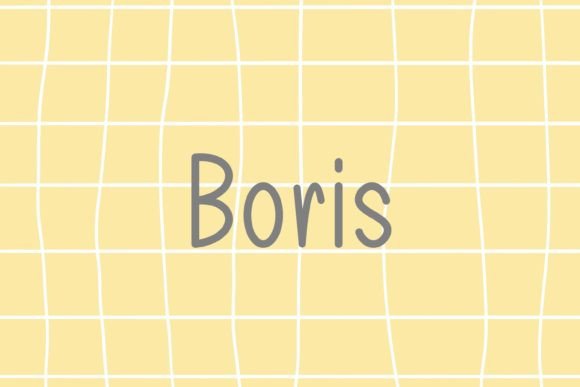
Boris Font: The Simple and Friendly Handwritten Font to Elevate Your Designs
In the world of typography, fonts play a crucial role in conveying the tone and personality of a design. Among the numerous fonts available, Boris font stands out for its simplicity, friendliness, and whimsical touch. This article will explore the features, benefits, and uses of the Boris font, and why it’s an excellent choice for your design projects.
What is Boris Font?
Boris is a simple and friendly handwritten font that exudes a sense of approachability and playfulness. Its whimsical and slightly quirky nature makes it an ideal choice for designers looking to add a personal touch to their work. The font’s clean and elegant lines ensure that it remains readable and versatile, making it suitable for a wide range of applications.
Key Features of Boris Font
- Simple and Friendly: Boris font boasts a straightforward and approachable design, making it perfect for creating a warm and inviting atmosphere in your designs.
- Handwritten: The font’s handwritten nature gives it a personal and organic feel, allowing you to add a touch of humanity to your work.
- Whimsical and Quirky: Boris font’s playful and slightly quirky personality makes it an excellent choice for designs that require a dash of creativity and fun.
- Versatile: The font’s clean lines and elegant design ensure that it remains readable and versatile, making it suitable for various design applications.
Benefits of Using Boris Font
Using Boris font in your design projects offers several benefits, including:
- Unique and Creative: Boris font’s distinctive design allows you to create unique and creative designs that stand out from the crowd.
- Easy to Read: The font’s clean lines and simple design ensure that your text remains readable, even at small sizes.
- Time-Saving: With Boris font, you can create professional-looking designs quickly and efficiently, saving you time and effort.
- Cost-Effective: As a versatile font, Boris can be used across multiple projects, making it a cost-effective solution for your design needs.
Use Cases for Boris Font
Boris font is an excellent choice for a wide range of design applications, including:
- Logos: Create a unique and memorable logo for your brand using Boris font.
- Wedding Invitations: Add a touch of elegance and whimsy to your wedding invitations with Boris font.
- Quotes: Use Boris font to create visually appealing quotes that inspire and motivate.
- Advertisements: Boris font’s playful and creative nature makes it perfect for advertisements that require a dash of personality.
- Print: Use Boris font in your print designs, such as brochures, flyers, and posters, to add a touch of whimsy and creativity.
- Magazines: Boris font is an excellent choice for magazine designs, particularly for article titles, headings, and quotes.
In conclusion, Boris font is a simple and friendly handwritten font that offers a unique and creative way to elevate your designs. Its whimsical and quirky nature makes it perfect for designs that require a dash of personality, while its clean lines and elegant design ensure that it remains readable and versatile. With its wide range of applications and benefits, Boris font is an excellent choice for designers looking to add a touch of whimsy and creativity to their work.